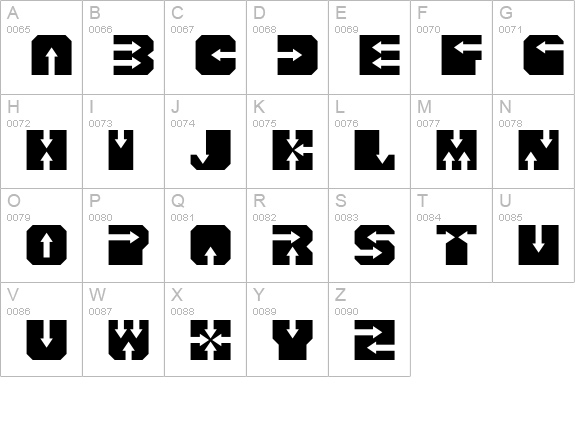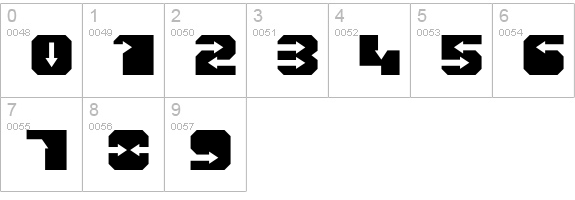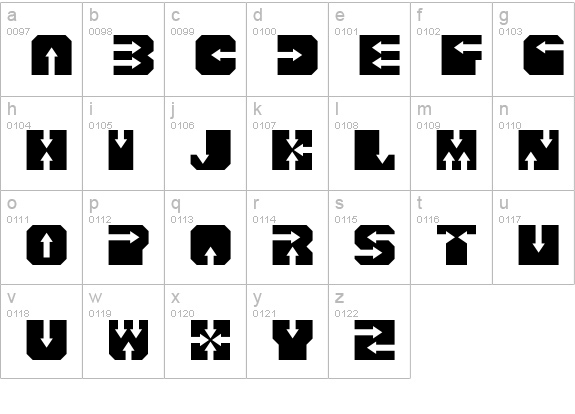
AlphaBloc-Direct is a modern and sleek font that exudes sophistication and elegance. With its clean lines and sharp edges, this font is perfect for creating a professional and polished look in any design project. The geometric aesthetic of AlphaBloc-Direct makes it versatile and suitable for a wide range of applications, from branding to editorial design. One of the best things about AlphaBloc-Direct is that it is available for free download at FontsMarket.com. Whether you're a seasoned designer looking to add a fresh font to your collection or a beginner looking for a high-quality typeface to elevate your projects, AlphaBloc-Direct is the perfect choice. Download it today and add a touch of modern elegance to your designs!